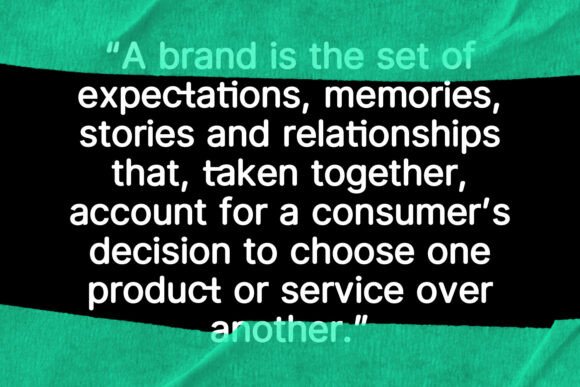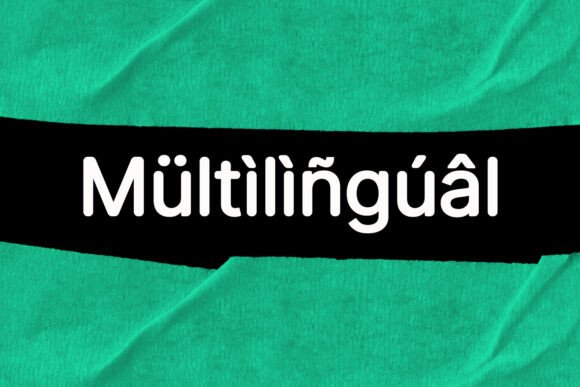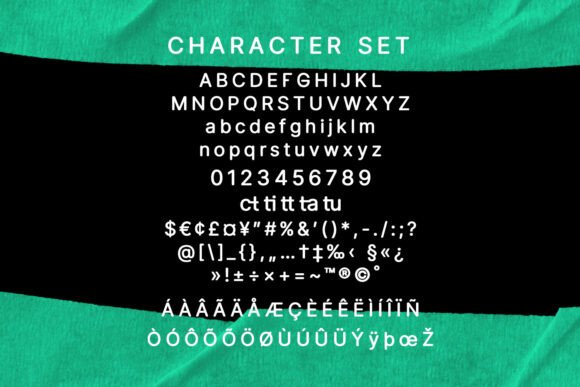
Introduction to Fuildon Font
Have you ever found yourself scrolling through your favorite design inspiration board, only to be stopped in your tracks by a font that perfectly captures the essence of your creative project? For designers, this moment of discovery is often the spark that sets off a chain reaction of ideas and possibilities. And for those who have stumbled upon the Fuildon Font, we’re willing to bet that it’s been a game-changer.
With its smooth, rounded letters and clean, modern design, the Fuildon Font is the perfect addition to any design resource arsenal. Its soft edges give it a friendly and easy-to-read look, making it great for bold and eye-catching designs. Whether you’re working on a creative project that requires a high-quality font with a transparent background or simply need a reliable design element to elevate your work, the Fuildon Font is an excellent choice.
Key Features of Fuildon Font
- Fuildon Font is a high-quality design resource, perfect for creative projects that require a unique touch.
- Unique, handcrafted design that sets it apart from more generic fonts.
- Perfect for use in digital design, including web design, graphic design, and print materials.
Honest Review: Fuildon Font
I recently had the chance to work with the Fuildon Font, and I must say, it’s been a game-changer for my design projects. As a designer, I’m always on the lookout for high-quality design resources that can elevate my creative work. And let me tell you, the Fuildon Font delivers.
What works well: ✨ The Fuildon Font is incredibly versatile and can be used for a wide range of design projects, from logos to brochures. I’ve used it for a few high-profile clients, and the results have been nothing short of stunning. The font is also free to download, making it an excellent addition to any designer’s toolkit.
What doesn’t work well: ⚠️ While the Fuildon Font is an excellent choice for most design projects, it does have a transparent background, which can make it difficult to use with certain backgrounds. Additionally, the font may not be suitable for projects that require a lot of bold or italic text.
Overall, I’m thoroughly impressed with the Fuildon Font. Its high quality and versatility make it an excellent addition to any designer’s arsenal. If you’re looking for a reliable and effective design resource, I highly recommend giving it a try.
- Excellent for logos, brochures, and other design projects
Tips for Getting the Most Out of Fuildon Font
To get the most out of Fuildon Font, use it in combination with other high-quality design resources. Experiment with different font sizes, colors, and styles to create a unique and visually appealing design.
The Fuildon Font is perfect for a variety of design projects, including business cards, brochures, and social media graphics. Its transparent background feature makes it ideal for use with images and other design elements.